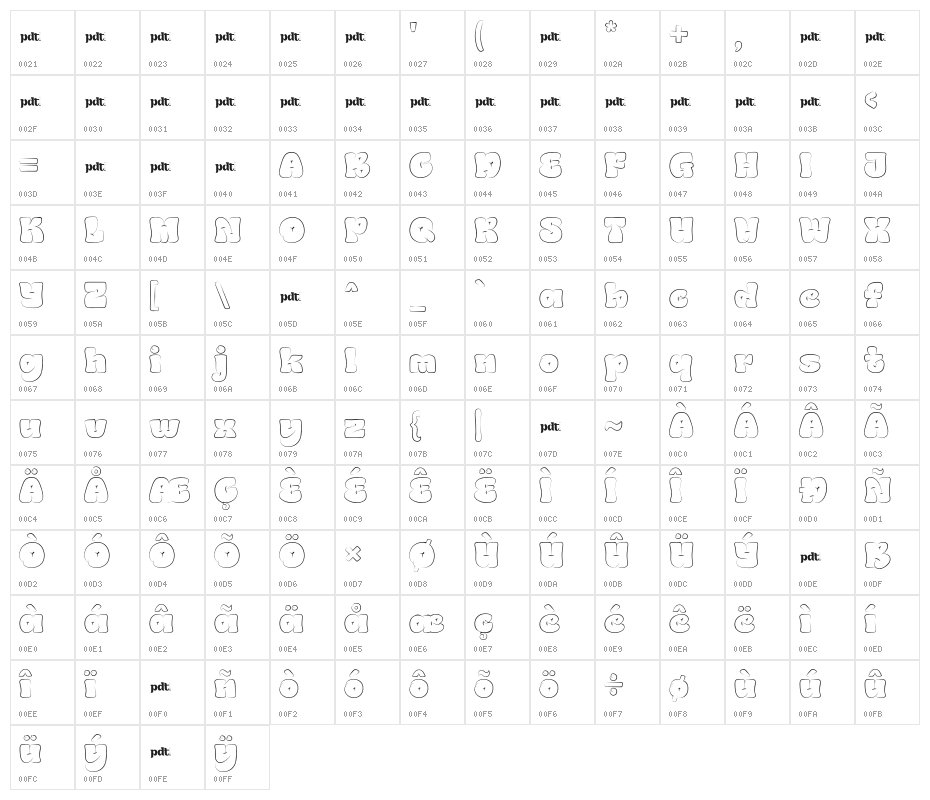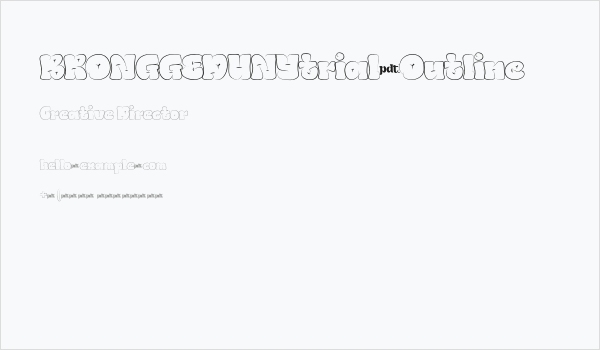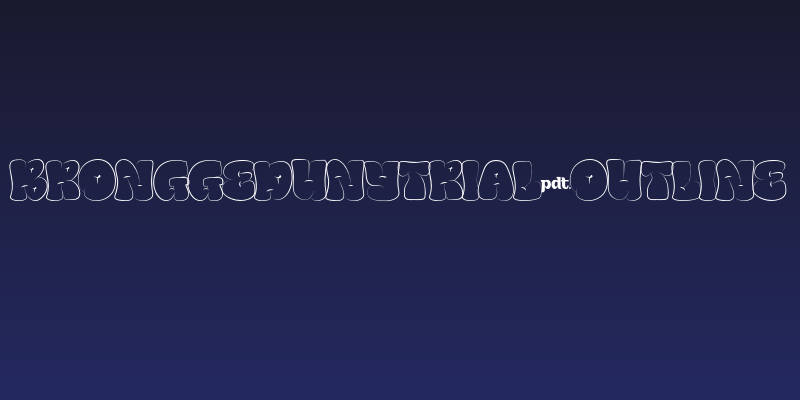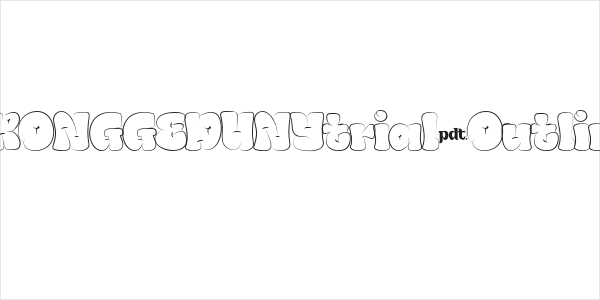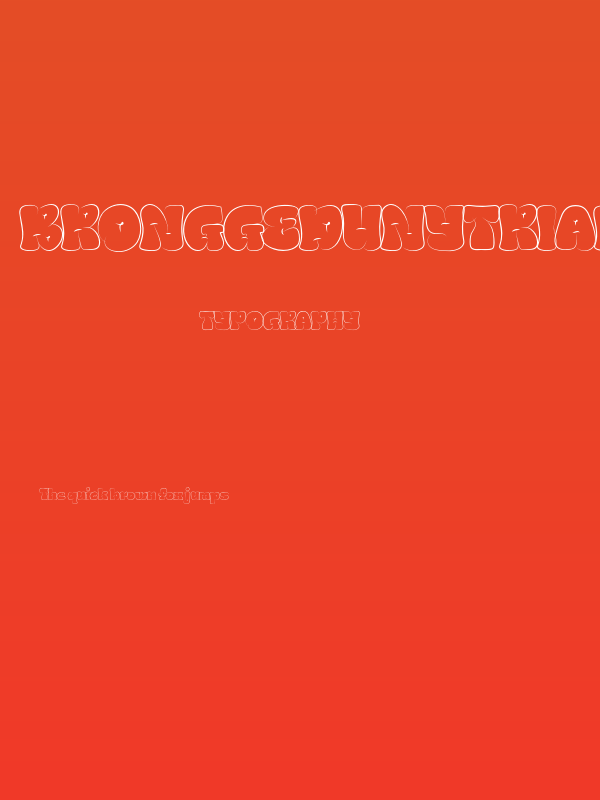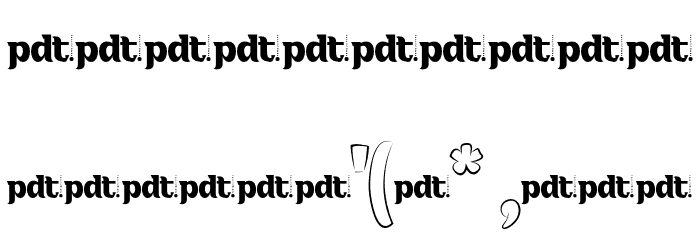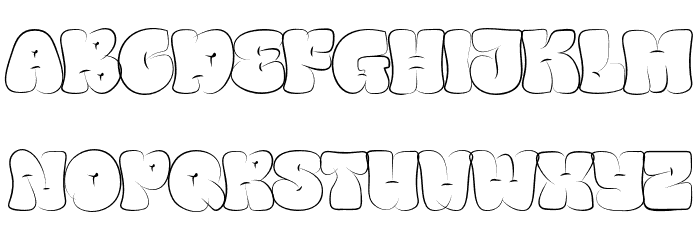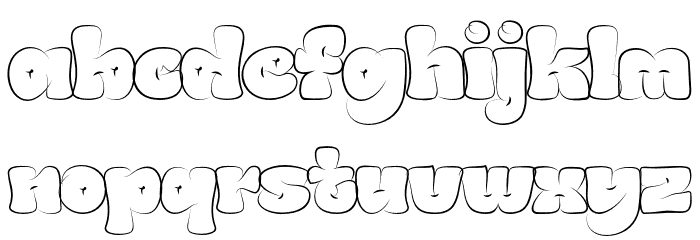
BRONGGEDUNYtrial-Outline Font
BRONGGEDUNYtrial-Outline Description
This playful and bold font features thick, rounded outlines that give it a bubbly and cartoonish appearance. The characters are wide and spacious, with a consistent stroke width that maintains a uniform look across both uppercase and lowercase letters. The font's outline style adds a unique dimension, making it stand out in any design. Its whimsical nature is perfect for projects that require a fun and engaging typeface. The special characters maintain the same playful aesthetic, ensuring cohesion throughout any text.
BRONGGEDUNYTRIAL-OUTLINE UPPERCASE
BRONGGEDUNYTRIAL-OUTLINE LOWERCASE
BRONGGEDUNYTRIAL-OUTLINE OTHER CHARS
| Font Family | BRONG GEDUNYtrial |
| Overall Style | Playful, Cartoonish |
| Proposed Projects | Ideal for children's books, playful posters, party invitations, and any design needing a fun, engaging typeface. |